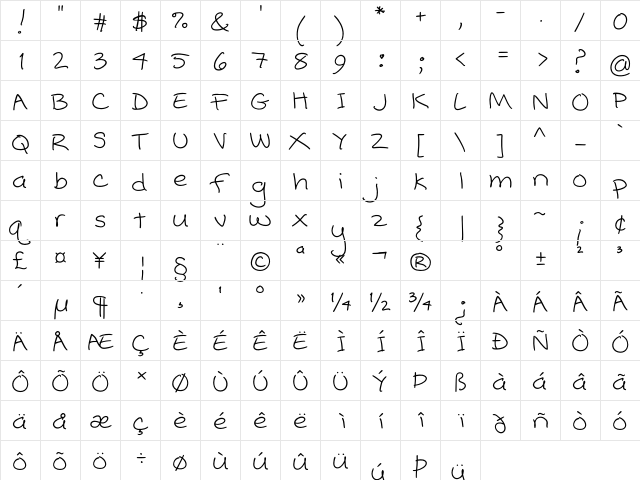
Popcorn Mountain Std Regular
| Foundry | Lee Batchelor |
| Designer | Lee Batchelor |
Design Context for Popcorn Mountain Std Typeface
Popcorn Mountain Std is a composed and adaptable typeface that performs quietly and consistently across a wide range of design contexts.
Pro Tip: Use Popcorn Mountain Std in both headline and body roles to test its range before committing to a single application.